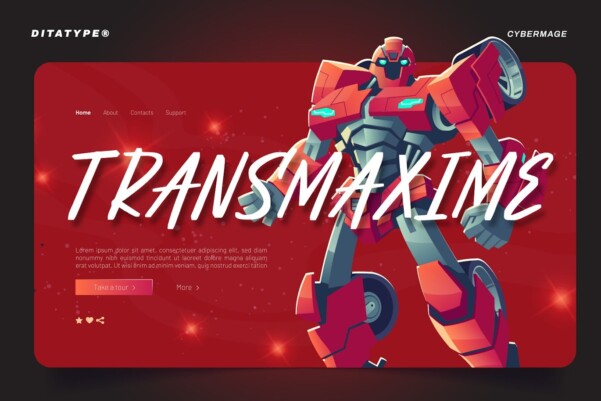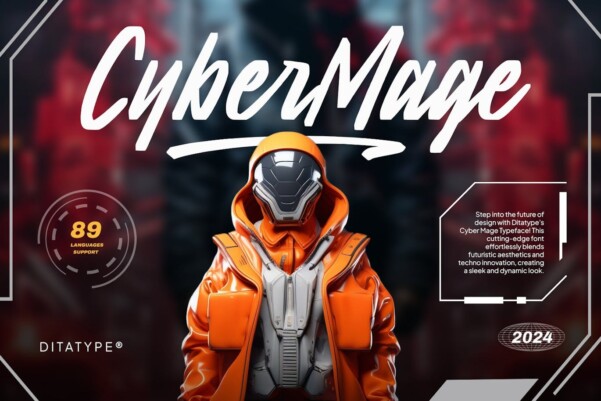
Cyber Mage Font
Cyber ​​Mage Font is a fascinating script font that seamlessly merges futuristic and techno styles in each meticulously designed letter. The ideal choice for designers who want to infuse their work with a sense of forward-thinking innovation. With equal proportions and low contrast, this font exudes a sense of balance and harmony.
Every trait of Cyber ​​Mage is infused with futuristic elements, inspired by the clean lines and dynamic energy of technological advancements. From soft curves to sharp angles, each letter evokes a feeling of innovation and modernity, while maintaining the fluidity and elegance of a typeface. Cyber ​​Mage’s fusion of futuristic and techno styles creates a unique visual language that captures the imagination and commands attention.